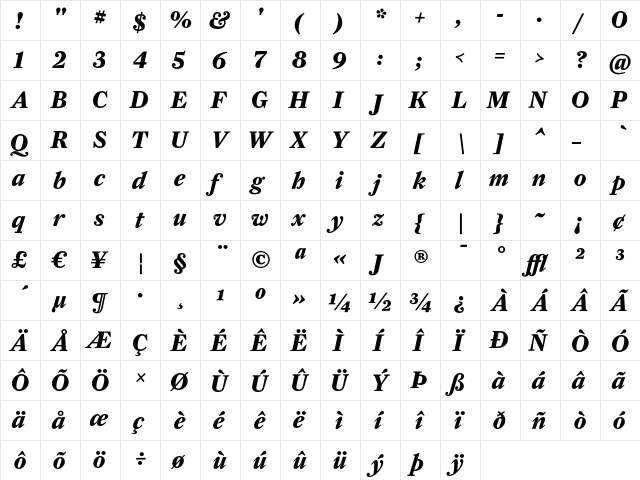
FarnhamText-BoldItalLF Regular
Design Context for FarnhamText-BoldItalLF Typeface
FarnhamText-BoldItalLF takes a measured approach to typography — its balanced proportions and neutral character make it a reliable workhorse for both digital and print work. Its bold stroke weight gives it real presence on the page.
Pro Tip: Use FarnhamText-BoldItalLF in both headline and body roles to test its range before committing to a single application.